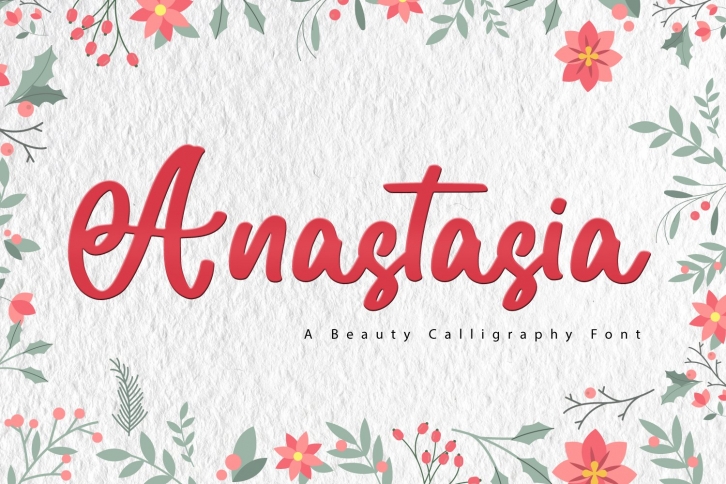
Anastasia Script is a great font that was designed by Nissa Studio. Imagine the amount of combinations you can create using this font! The archive is 18.22 MB and it was released on December 21, 2020. Anastasia Script looks beautiful on wedding invitations, greeting cards, logos, posters, labels, t-shirt designs, logos, business cards and is perfect for use in ink or watercolor works, fashion, magazines, packaging and food menus, children's books and more!